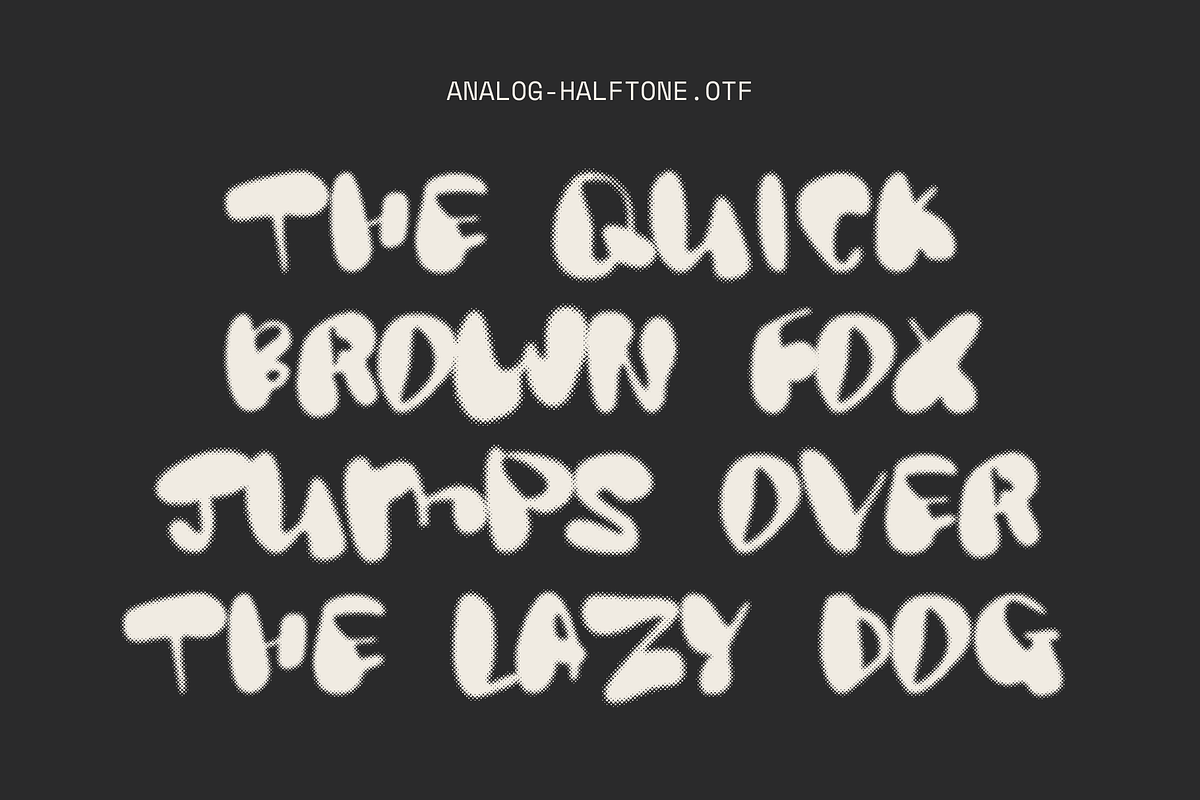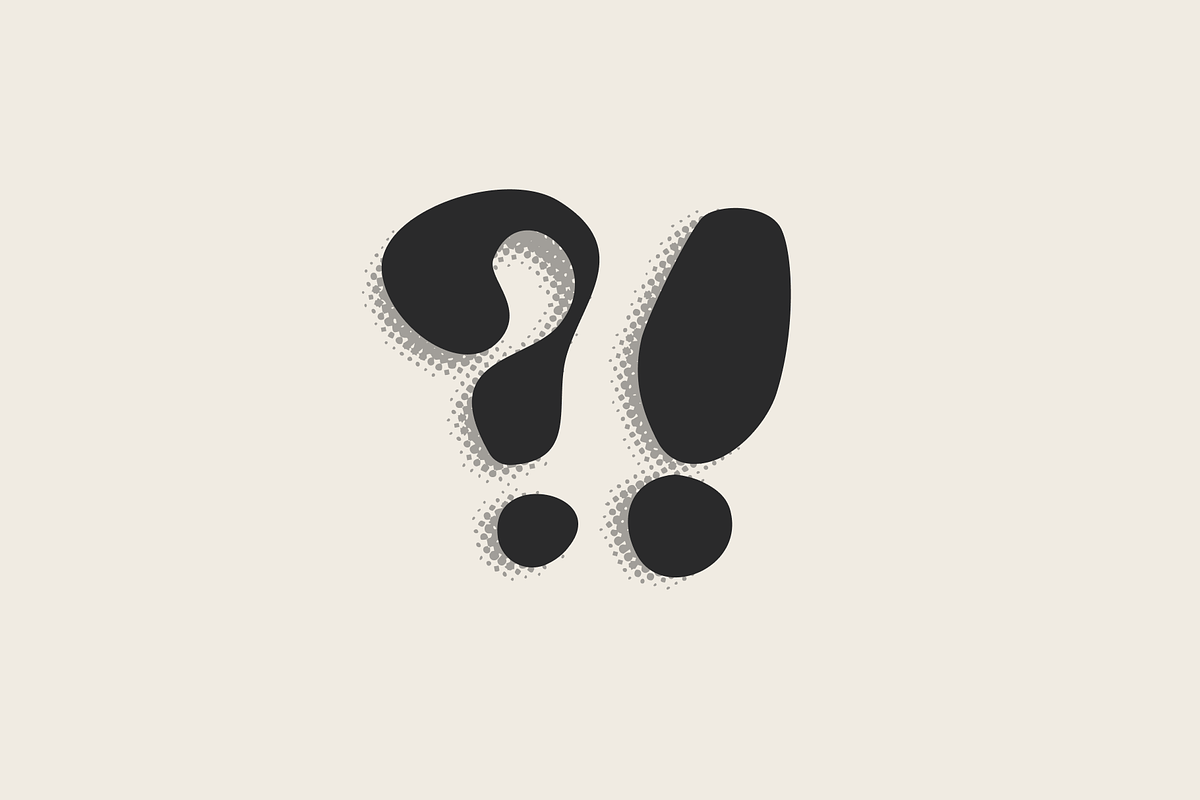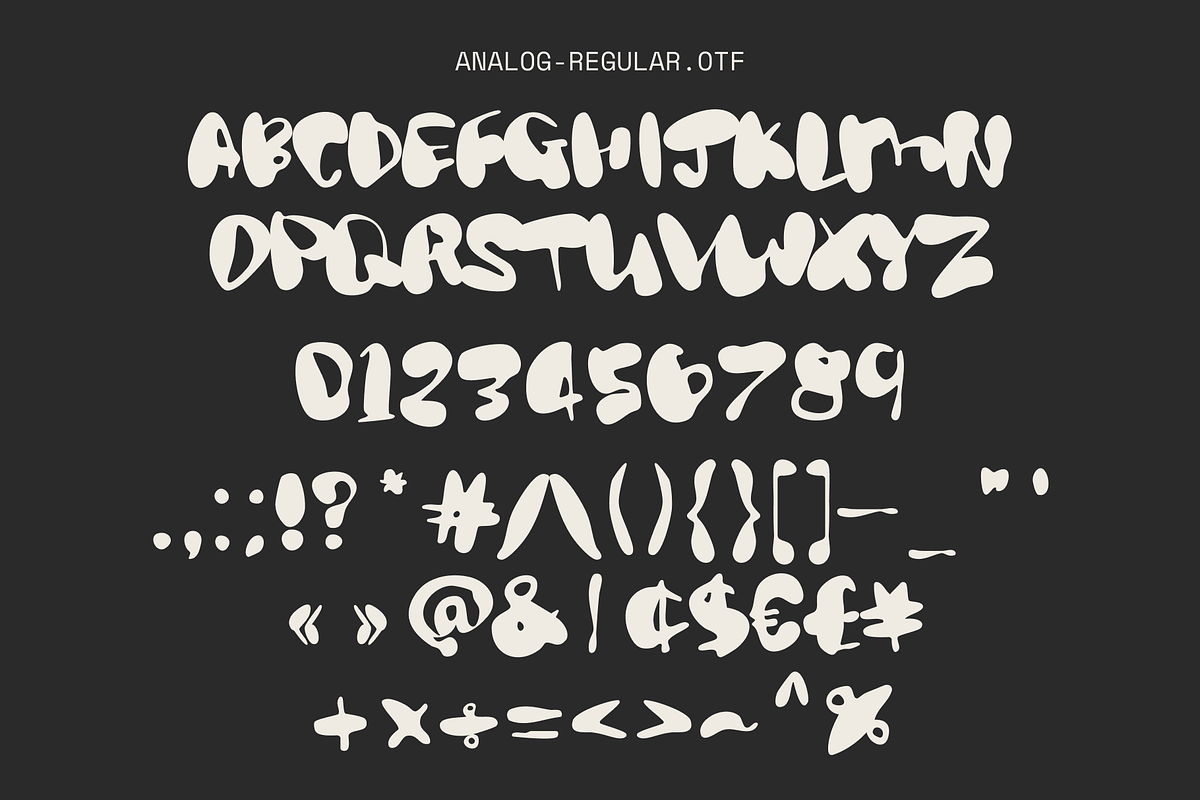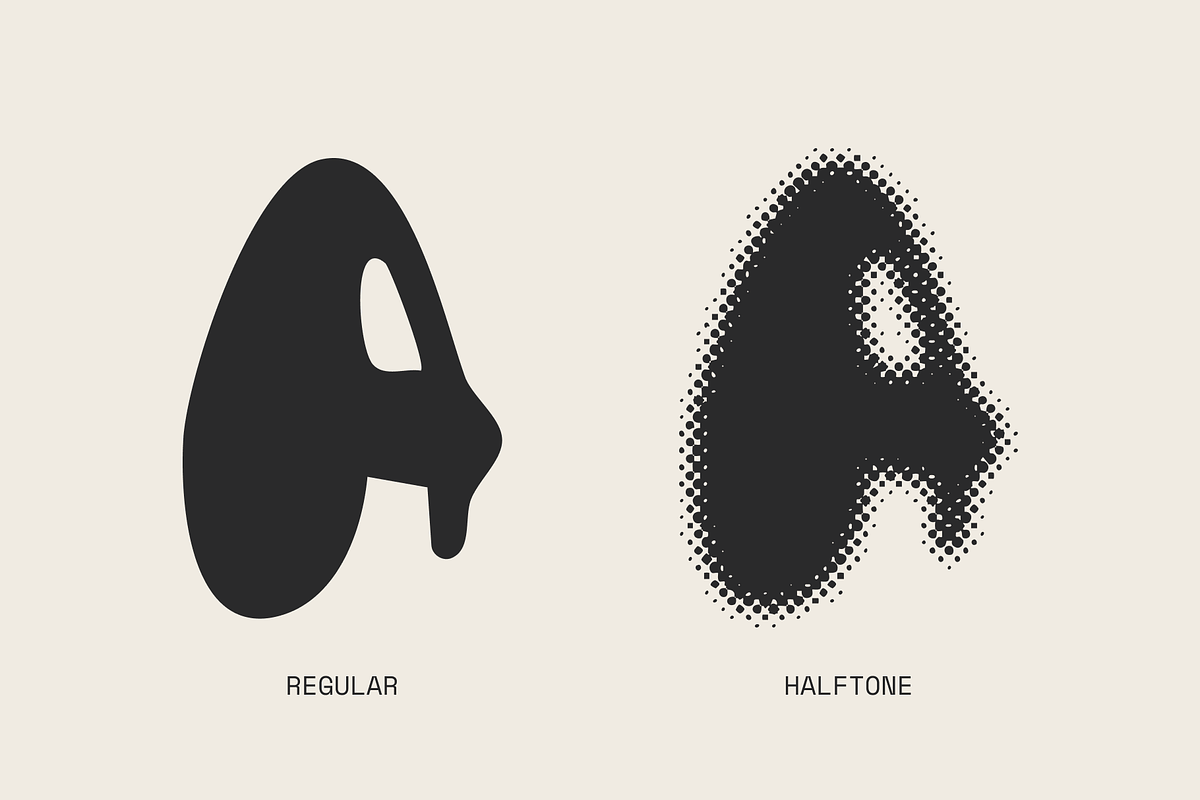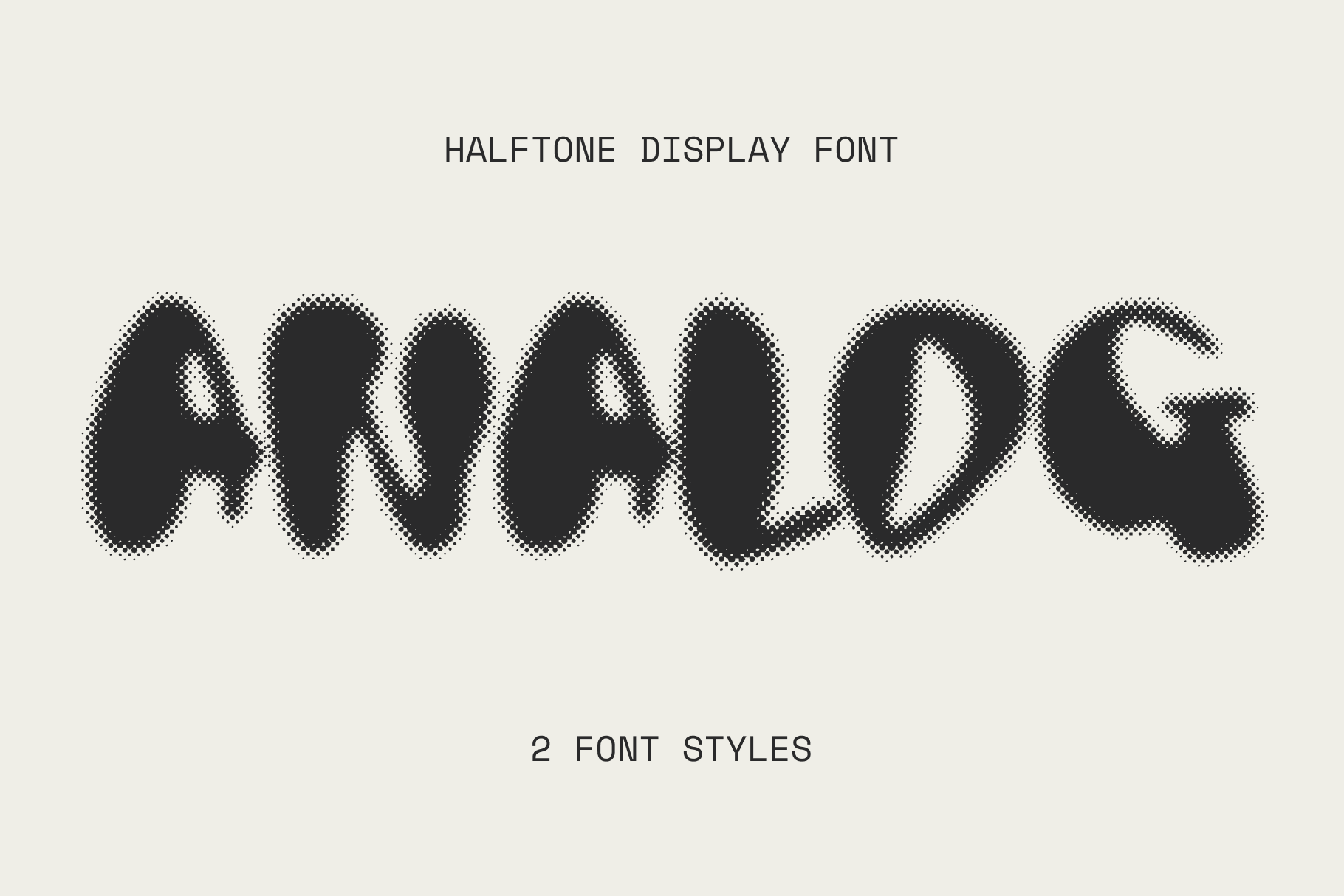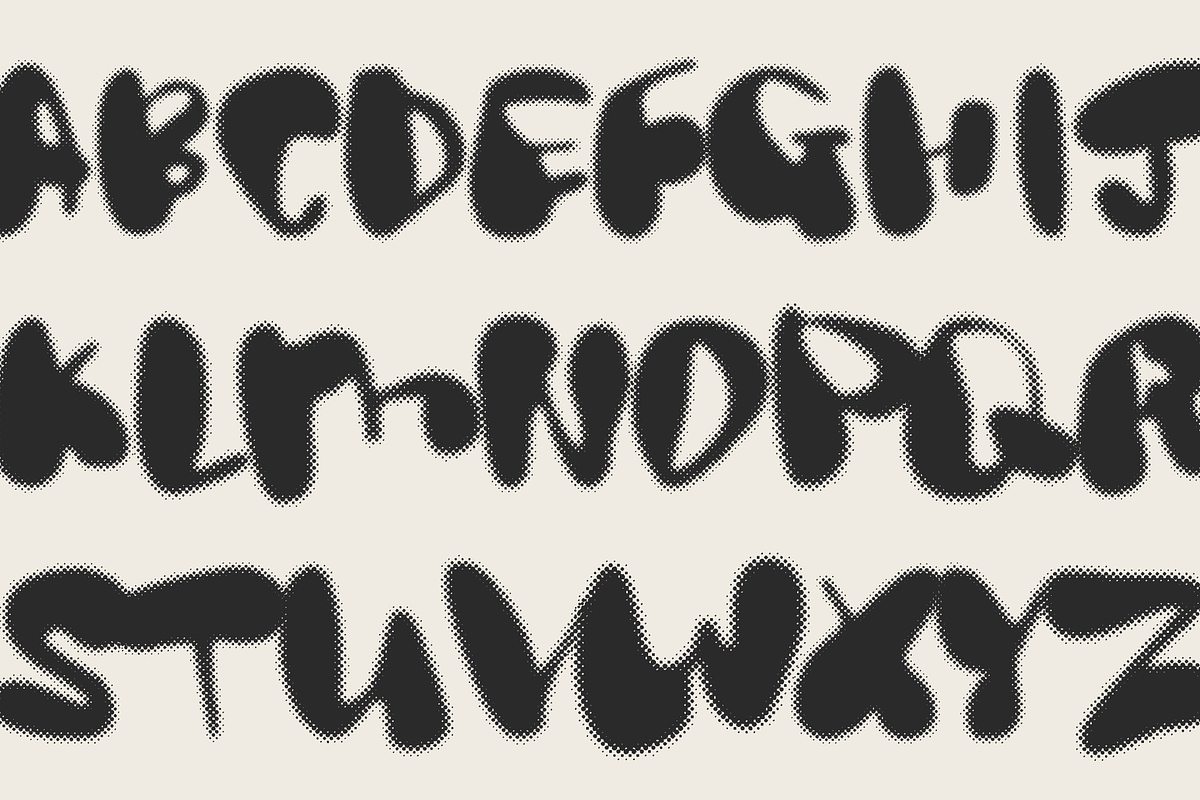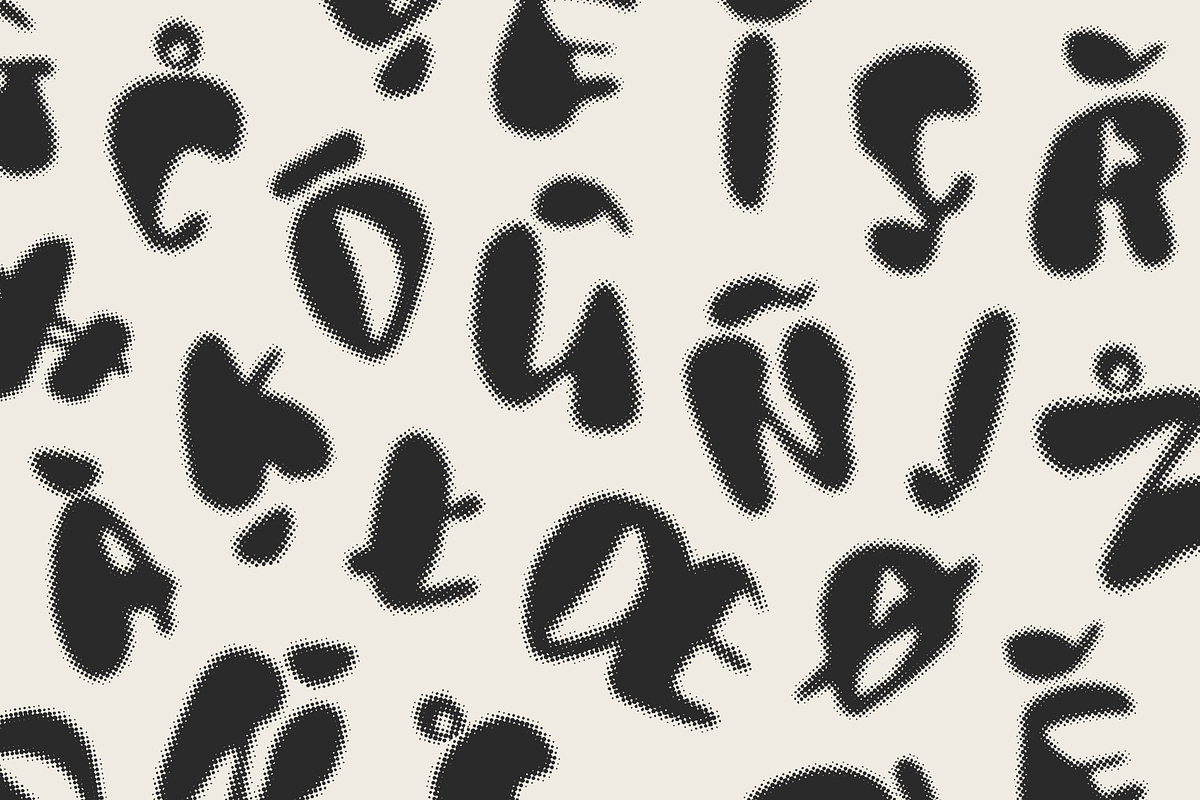
ANALOG — halftone multilingual font
ANALOG is a hand-drawn wonky and wobbly typeface inspired by heavy ink blots and unpredictable paint strokes. ANALOG comes in two styles: regular and halftone, reminiscent of newsprinting!
ANALOG supports a wide range of Latin-based languages: Afrikaans • Albanian • Croatian • Czech • Danish • English • Estonian • Finnish • French • German • Italian • Norwegian • Oromo • Portuguese • Polish • Romanian • Slovenian • Spanish • Swedish and more.